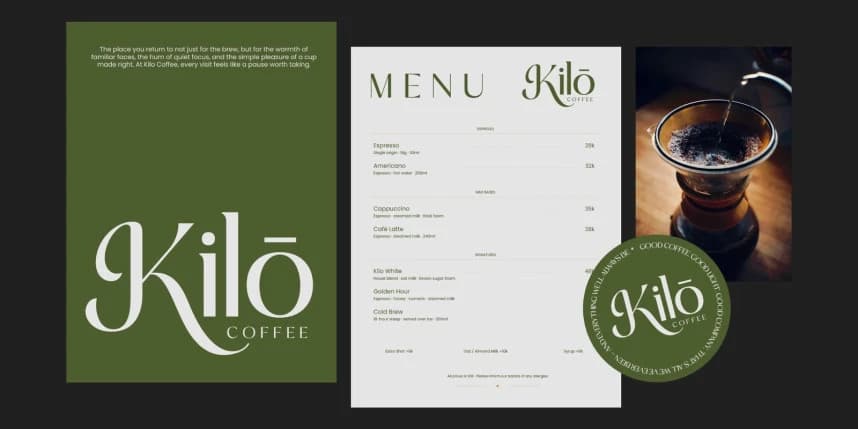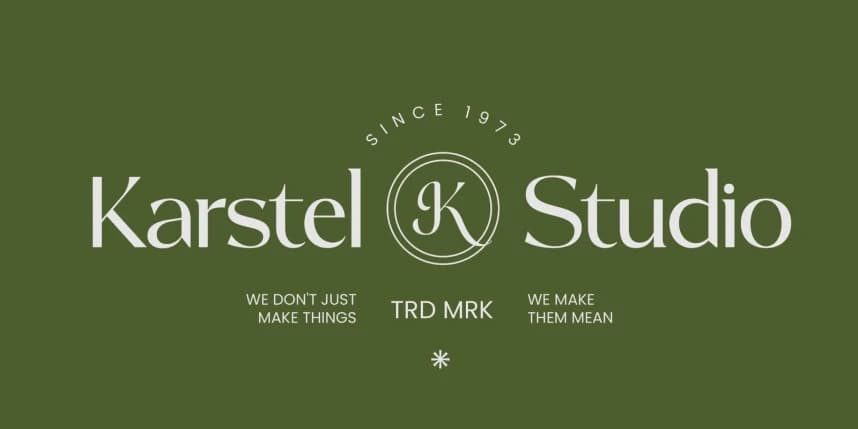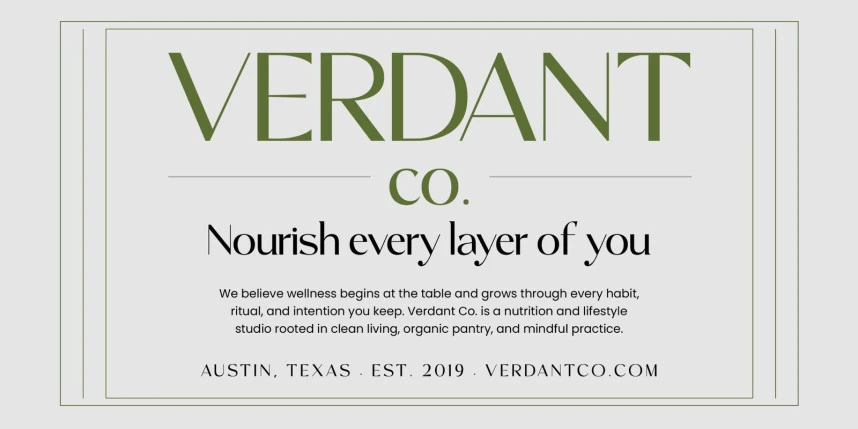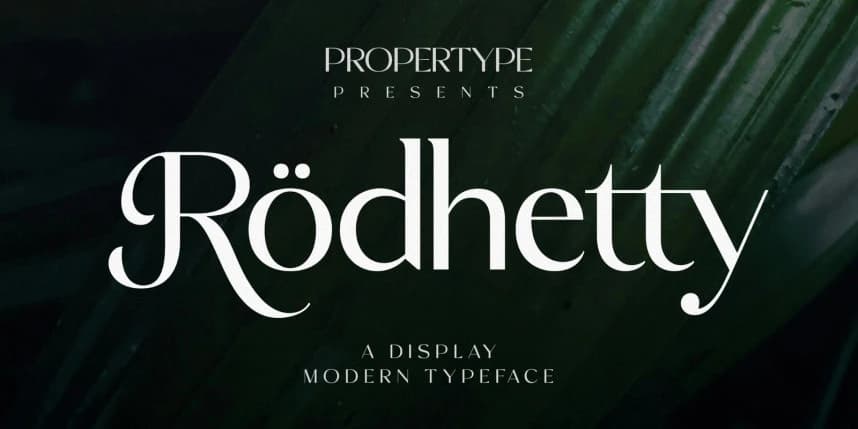
Rodhetty Font
Rodhetty Font is an elegant display typeface with high-contrast lines and George curved terminals, perfect for logos, invitations, and branding. This download includes desktop and web font files under a personal-use license.
Overview
Rodhetty Font is an elegant display typeface featuring high-contrast lines and George curved terminals, designed to elevate logos, holiday cards, wedding invitations, quotes, ads, and more.
Ideal uses
• Logos and branding identities
• Wedding invitations and holiday cards
• Headlines, quotes, and ad copy
• Social graphics and posters
With its distinctive contrast and refined terminals, Rodhetty helps you craft premium visuals quickly. It pairs well with clean sans fonts and bold color palettes, serving designers seeking a high-end display option.